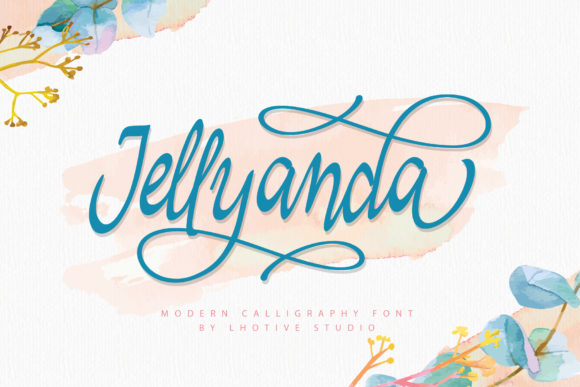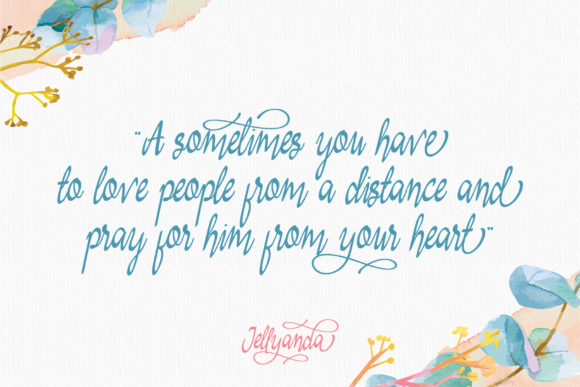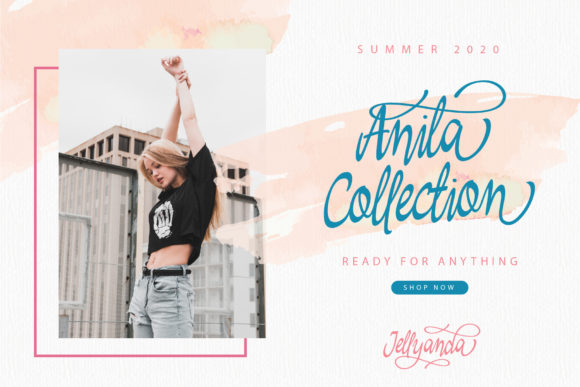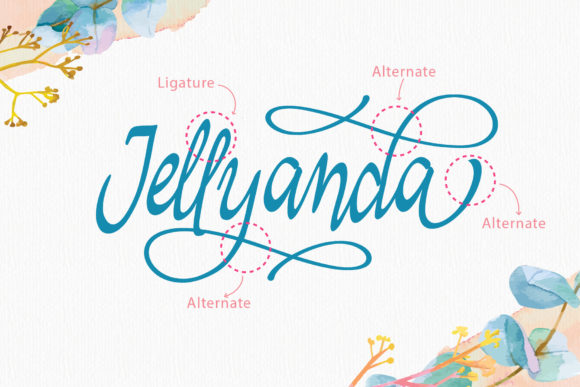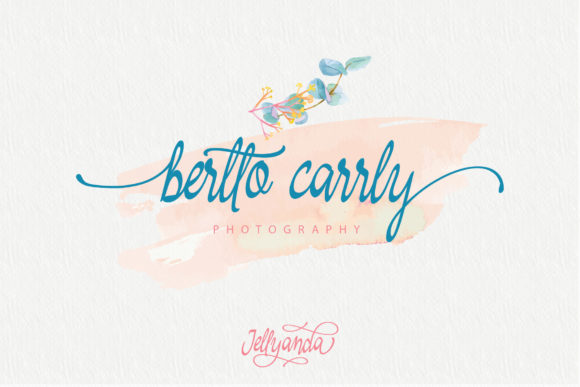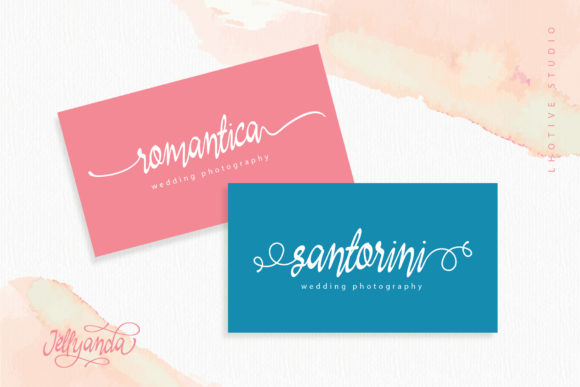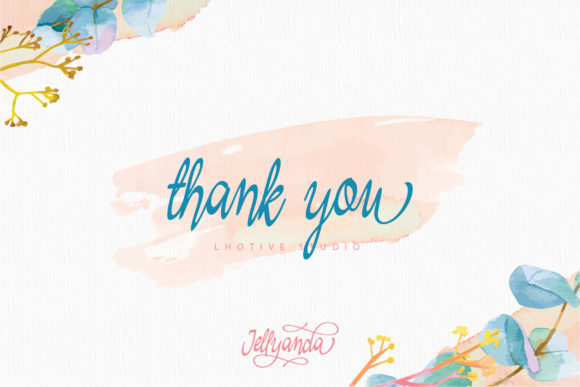
Jellyanda Font
About Jellyanda Font
Jellyanda is a beautiful script font. It is PUA encoded which means you can access all of the awesome glyphs and swashes with ease! It is perfect for logos, social media posts branding and much more!